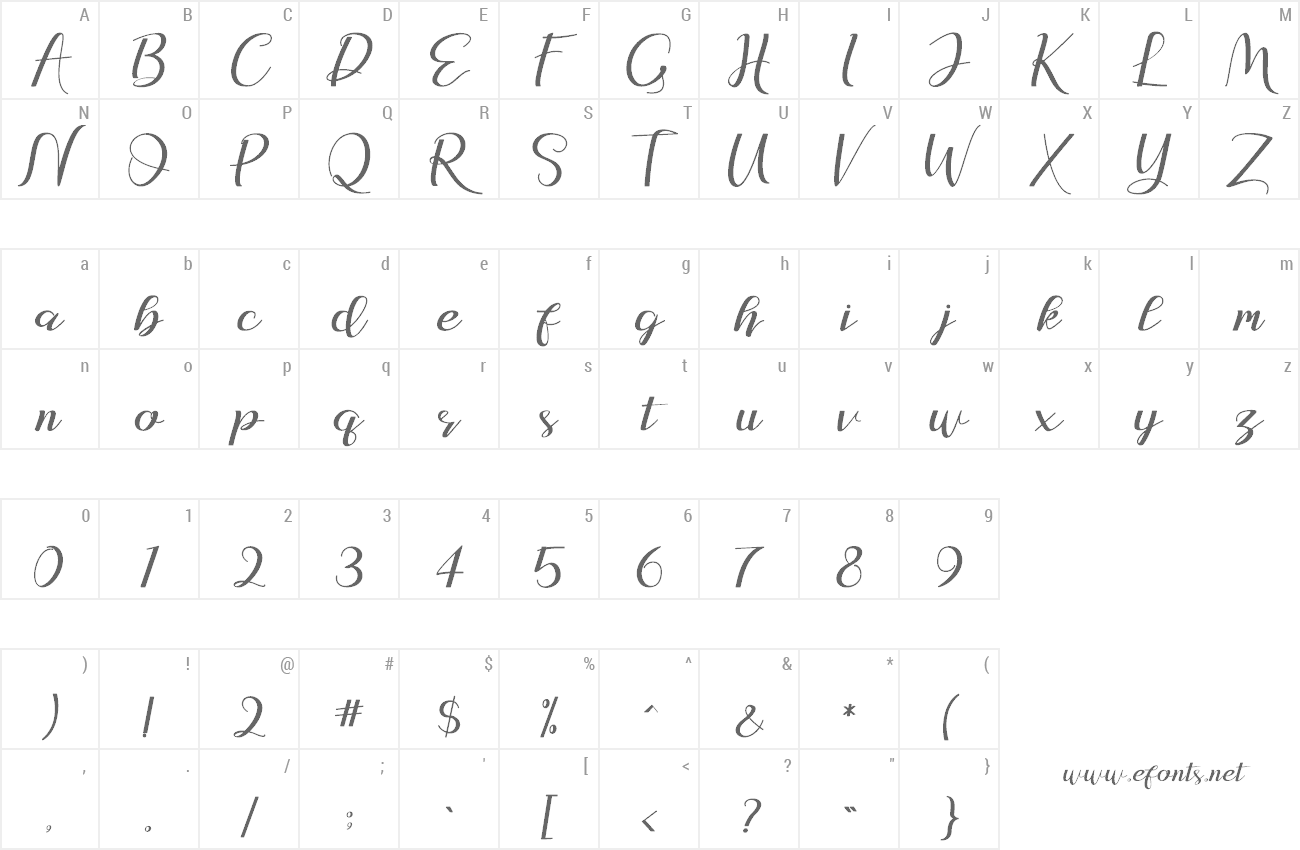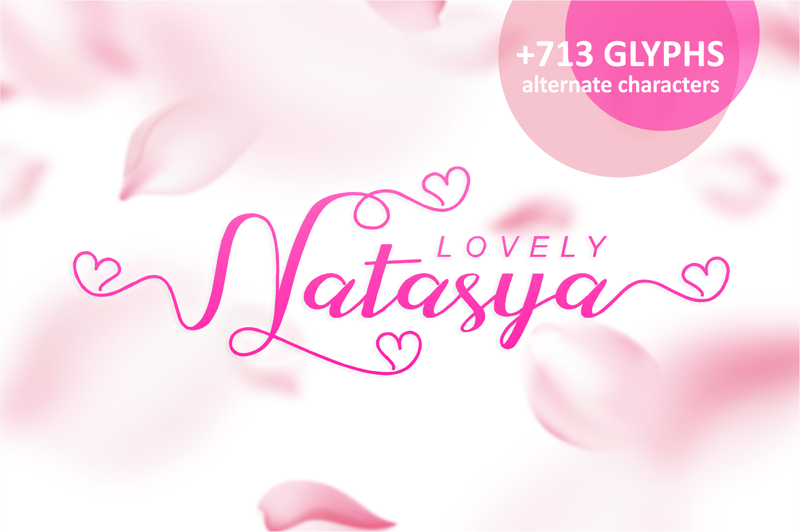
Preview and download Natasya Font. Created by Wandani Creative in Script Calligraphy styles with Demo license.
Lovely Natasya is a modern hand-based typography, This font is made up of irregularly flowing letters, both between top-down and with subsequent letters,which makes it suitable for Logotype, posters, businness cards, merchandise, wedding invitations, greeting cards, banners blogs, clothing, water-based paint designs / prints, correspondence, quotes and more!. Lovely Natasya has given PUA encoded (fonts with special code). This Font Equipped: -Uppercase -Lowercase -Figures & Punctuation -Ligatures -Language Support - Stylistic Alternates - Alternative Character To purchase full version with a commercial license at: https://www.creativefabrica.com/product/lovely-natasya/ref/130637/ Or visit my shop: https://www.creativefabrica.com/designer/wandani-creative/ If there are any questions, Please contact me, at wandani.office@gmail.com, I really need your support and advice, and I am happy to help you. Thanks For Looking, Hopefully Useful And Good Luck For You. |